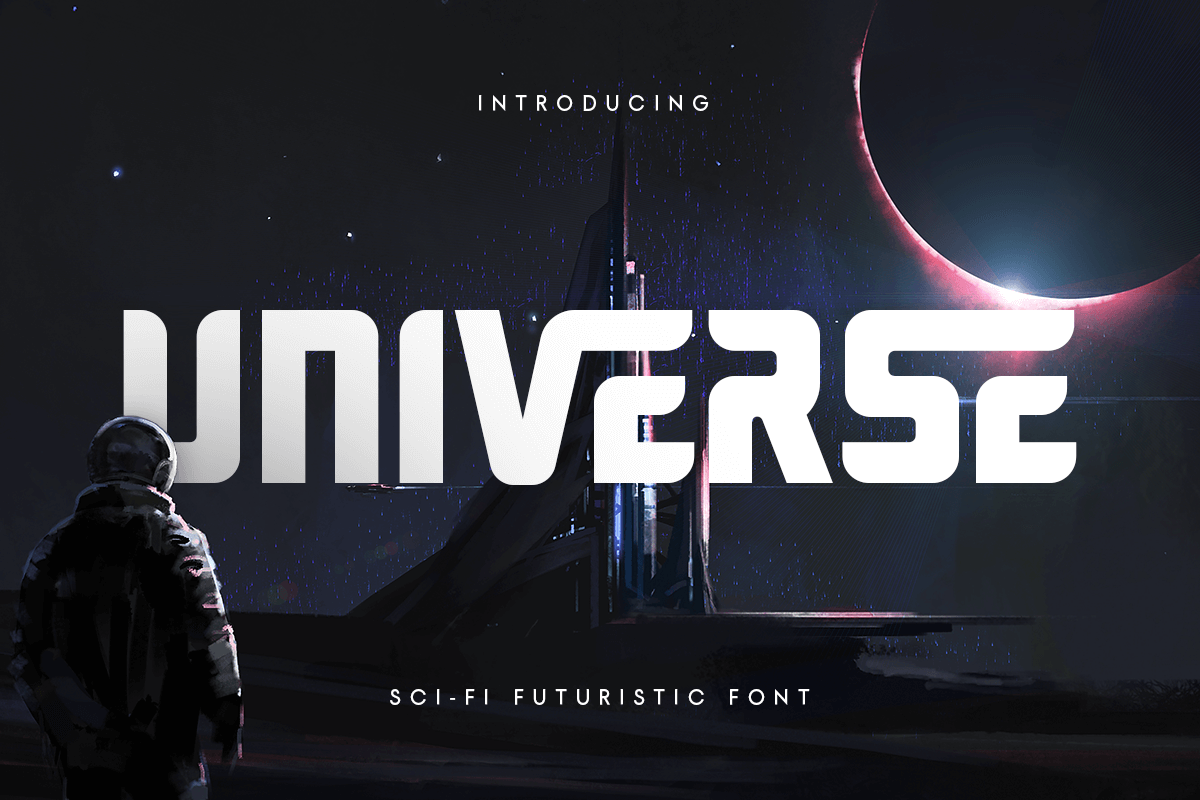
Universe
Universe is A Scifi Futuristic Font, this scifi font are prepared special for Technology, Modern, and Futuristic design needs, that created special for Logo, Title and more stand out typography for futuristic and sci-fi. It's so perfect to add your style and headline overview for technology, film, space, and futuristic theme. And specially for this font, we've ready for modern feels so enjoy to create any project that will show your main idea out.
Ready with All-Caps Characters with different shape inside
Preview as a inspirations that you can do with Scifi Futuristic font
Perfect for Futuristic Design